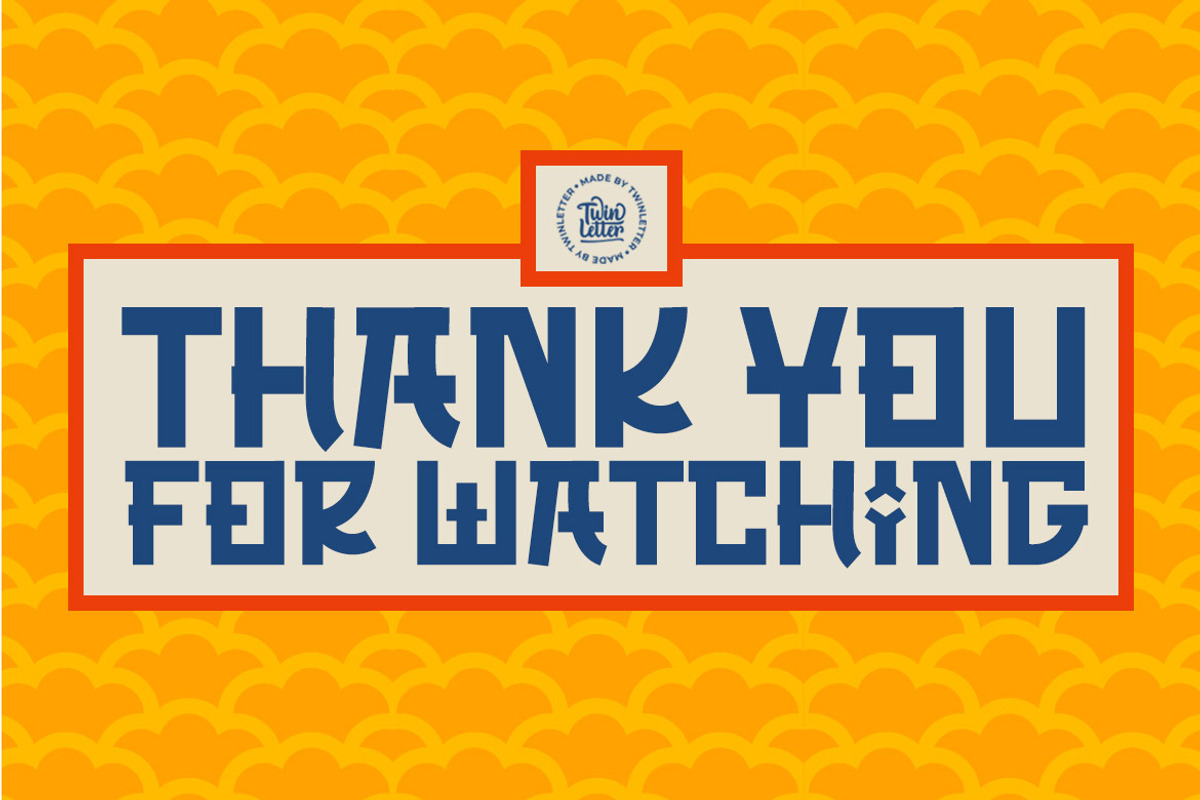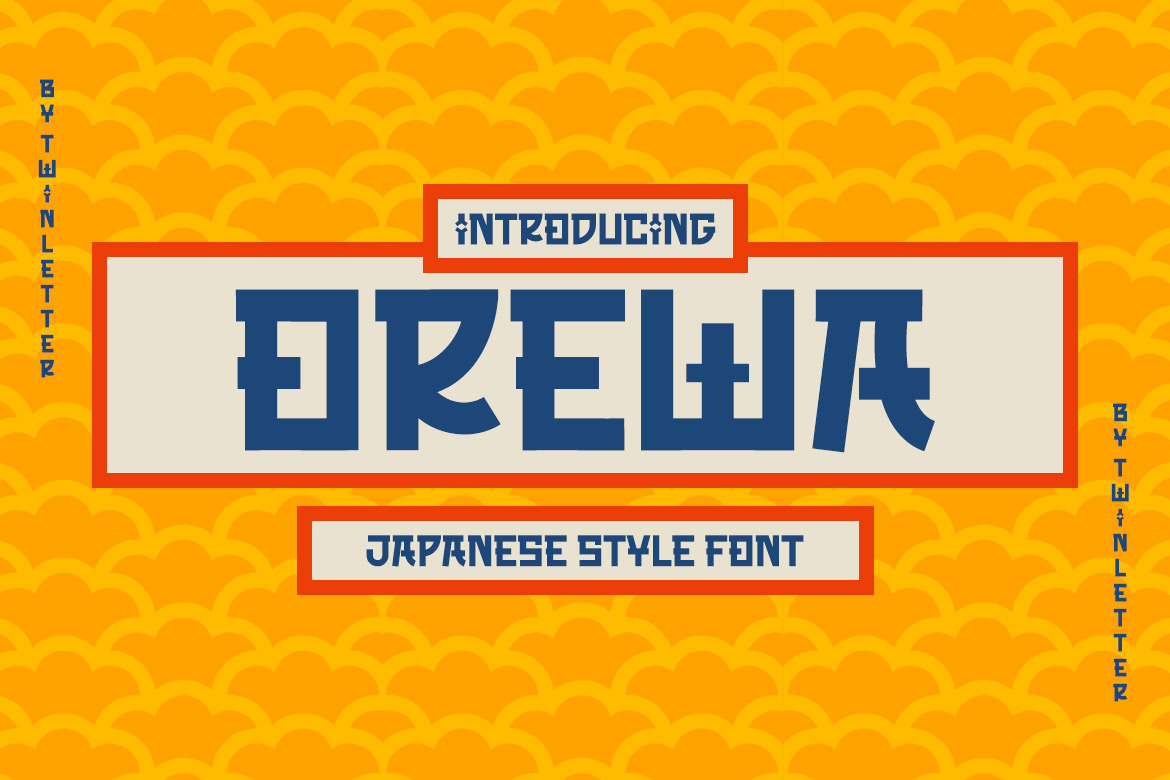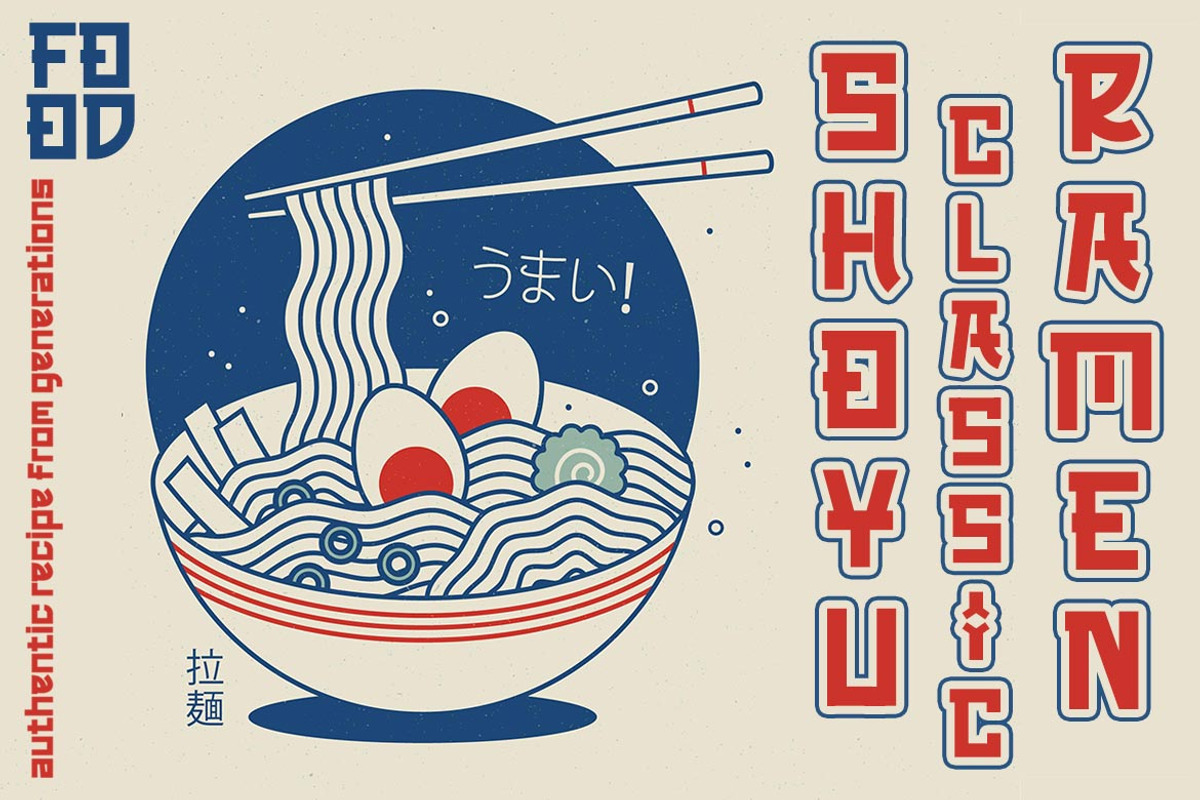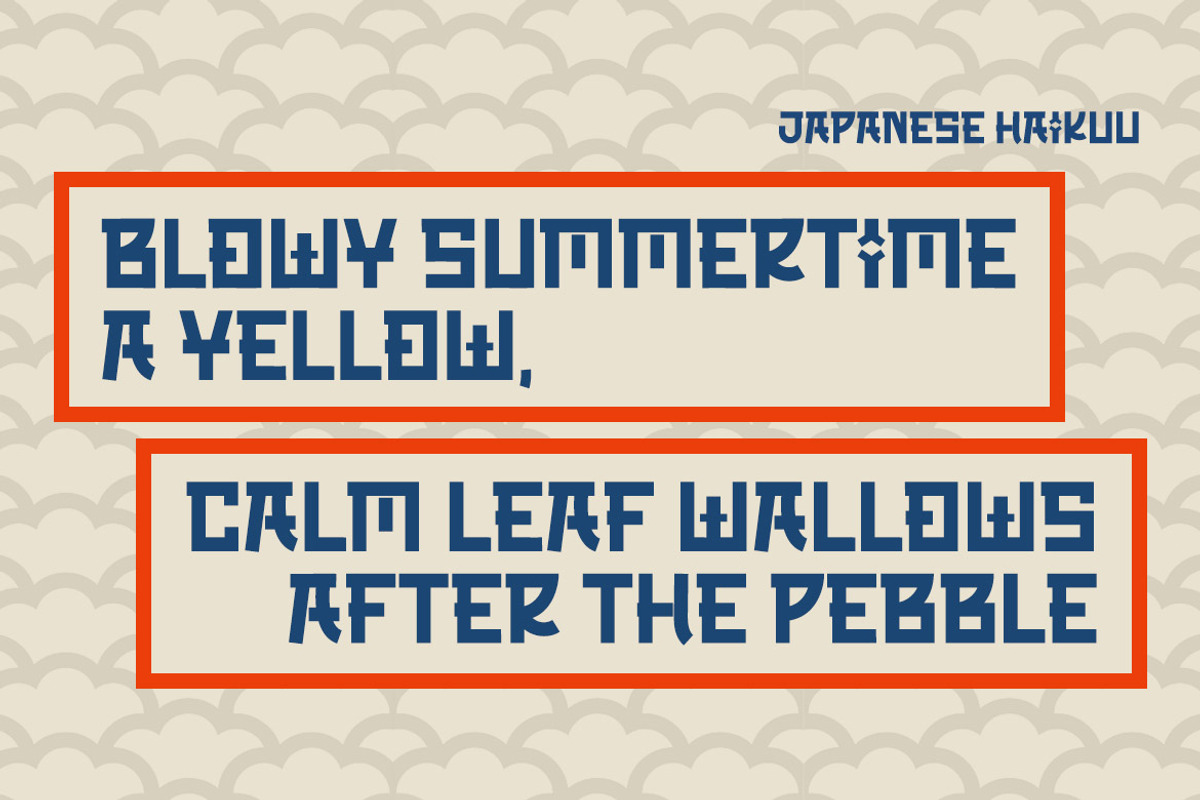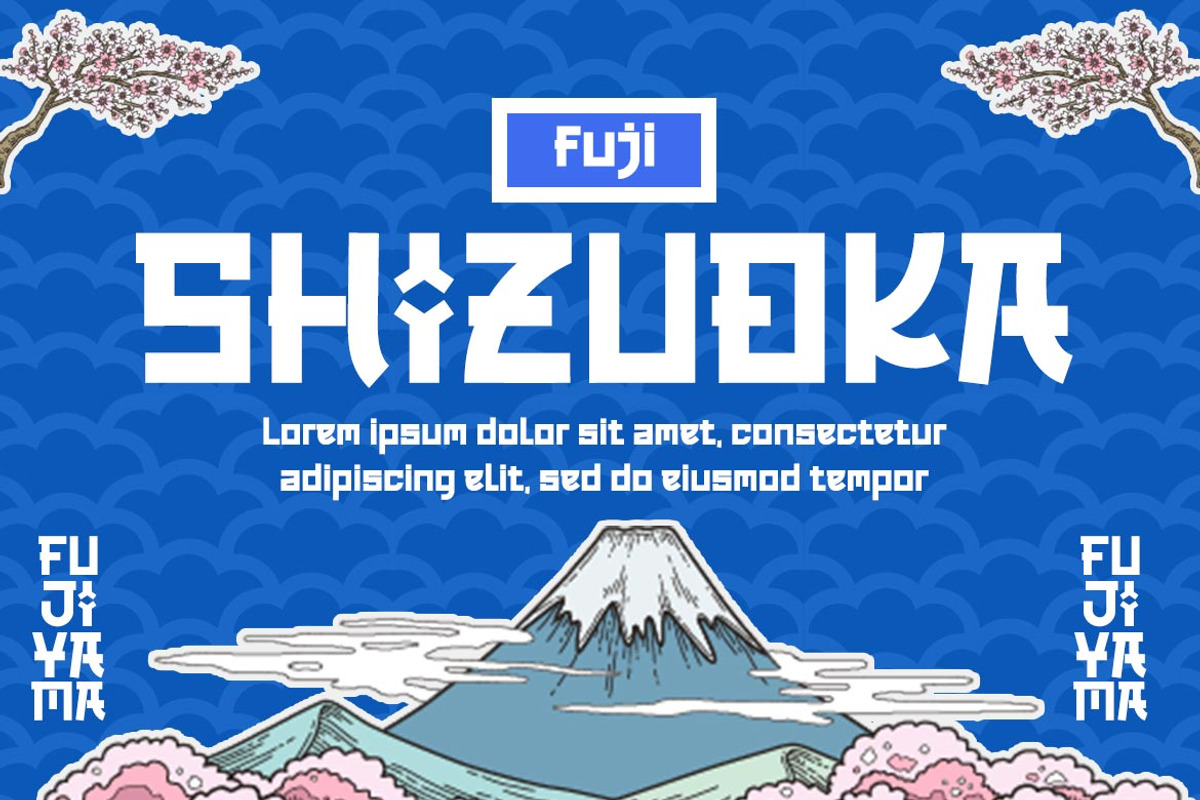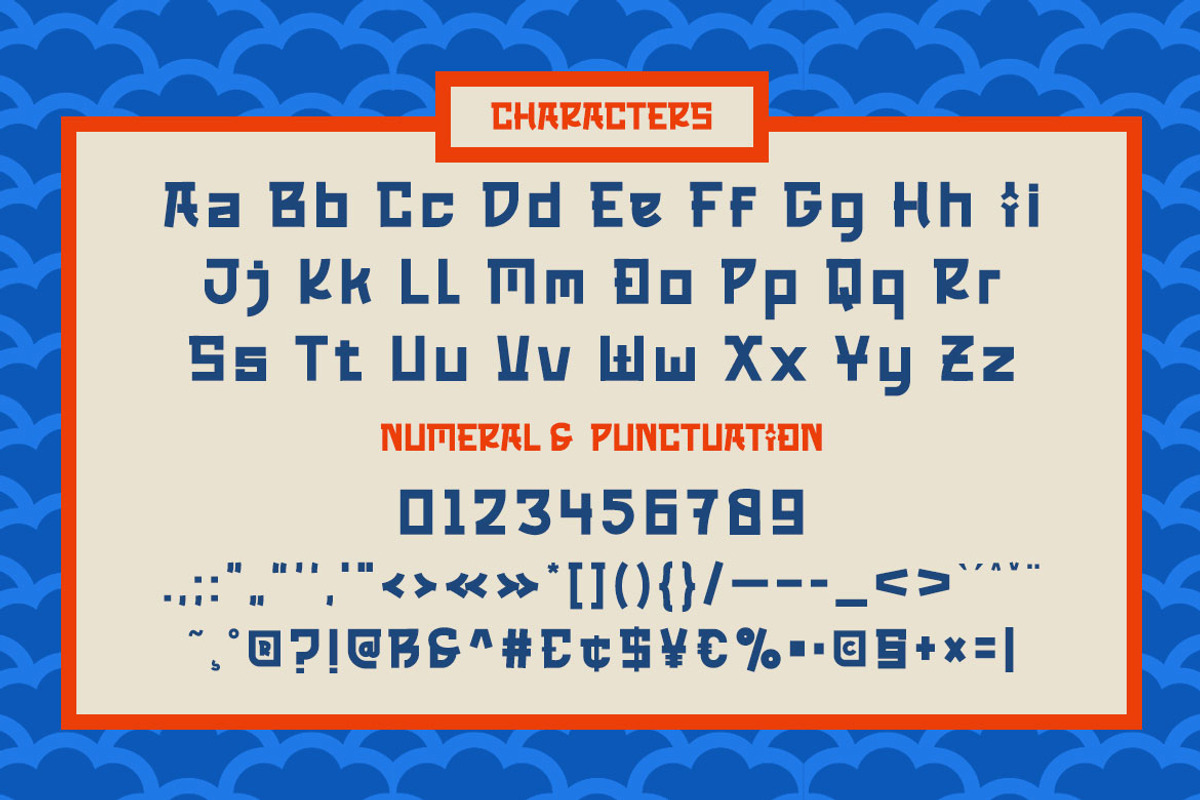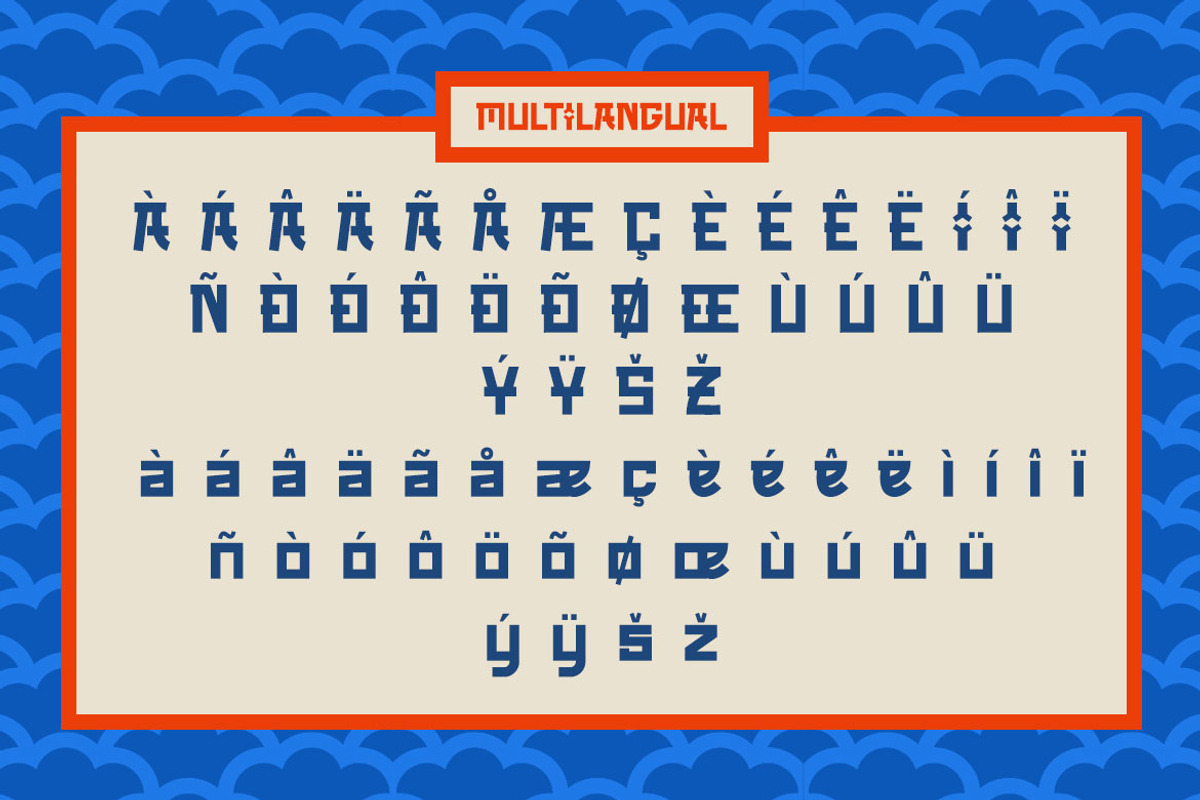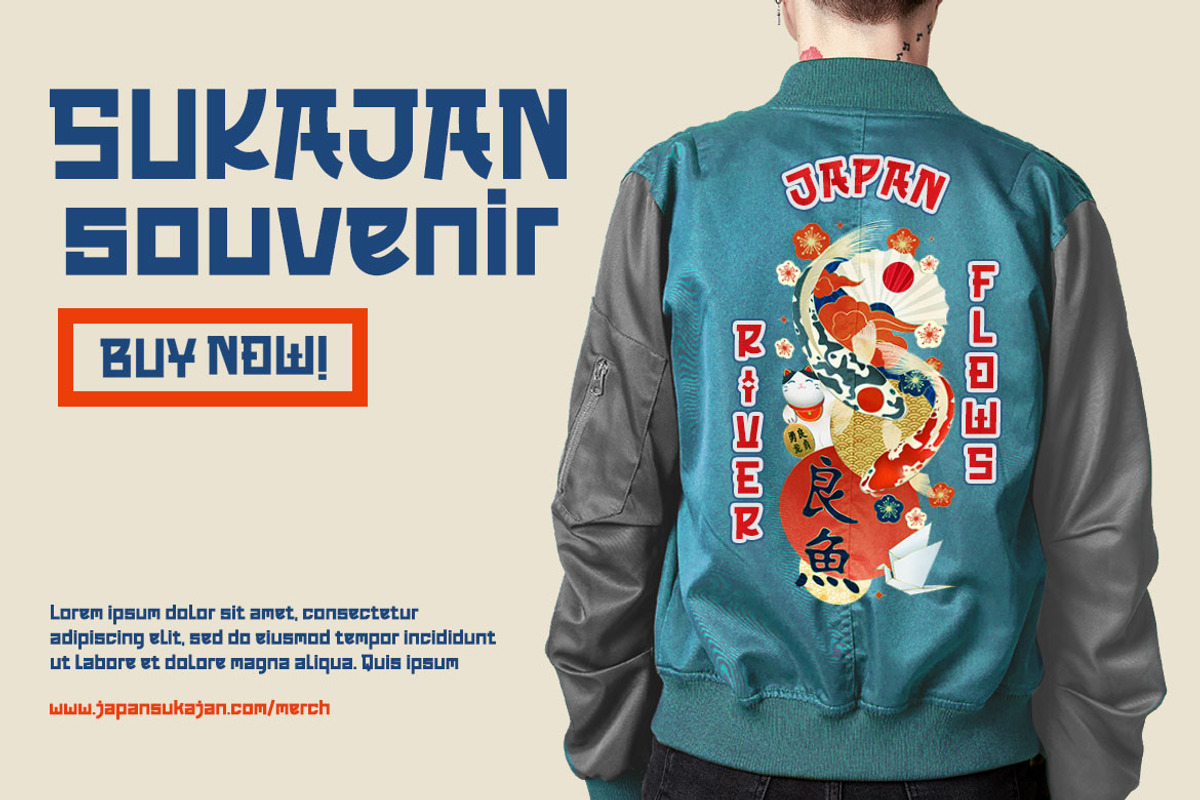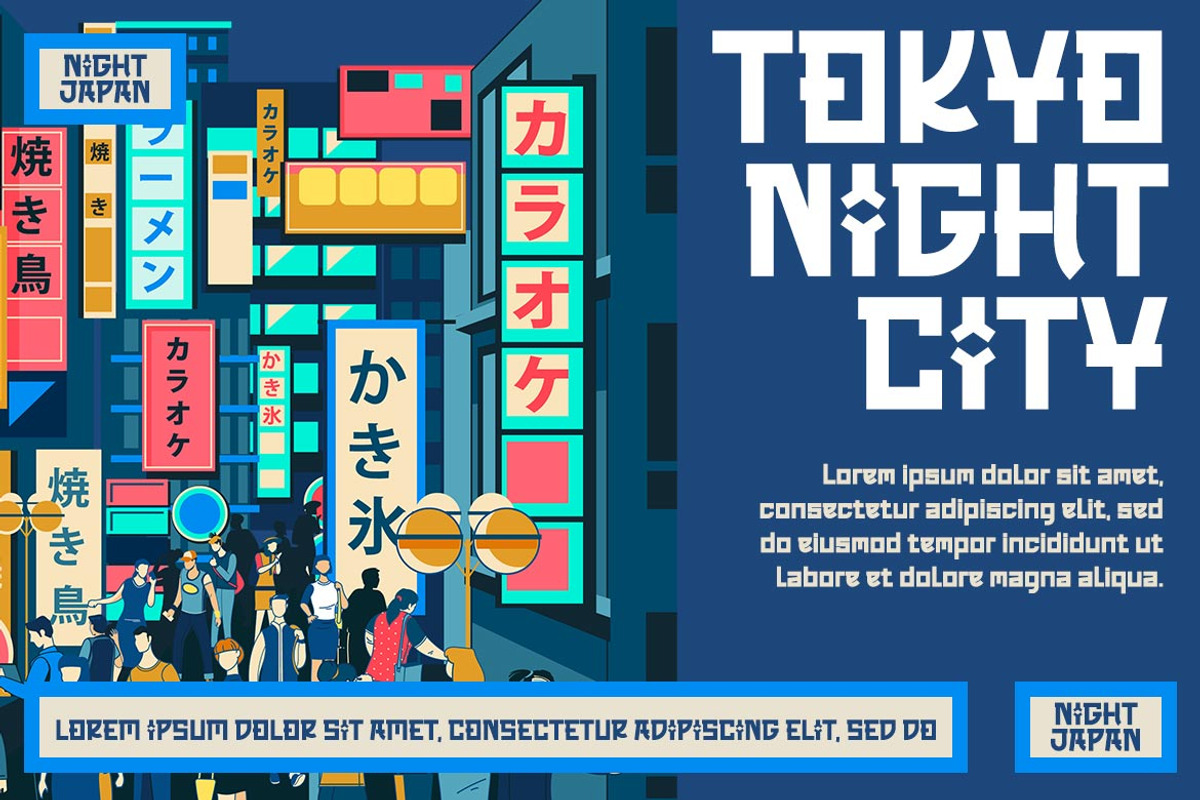
OREWA - Japanese style font
Orewa, our newest font, is now available.
In every form of the letter, we design typefaces with great attention. So that this font, which we named Orewa, is realized, which is neat and elegant, easy to read, grasp, and recall at a glance, this font is extremely suited for those of you who have a high level of creativity. Always maintain a fresh and unique appearance.
Logotypes, food banners, branding, brochure, posters, movie titles, book titles, quotes, and more may all benefit from this font.
Of course, using this font in your various design projects will make them excellent and outstanding; many viewers are drawn to the striking and unusual graphic display. Start utilizing this typeface in your projects to make them stand out.